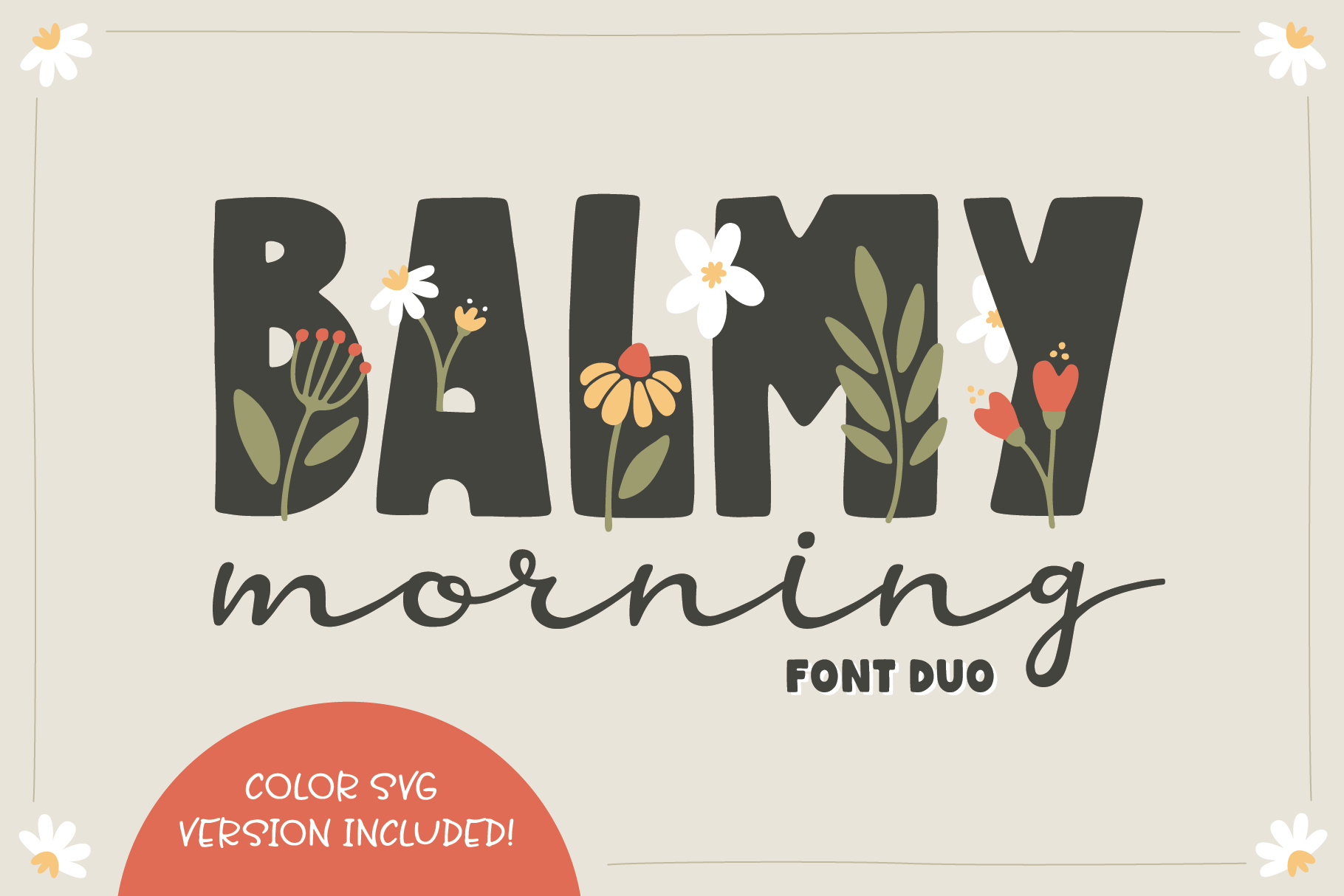
Balmy Morning Font Duo
Balmy Morning is a beautiful font duo that combines a bold block font with a flowing script. Also included is an OpenType-SVG version of the block font that is decorated with flowers. Colors can be changed by vectorizing the font in a program such as Illustrator. Flower doodles are also included separately in .ai and .png formats.